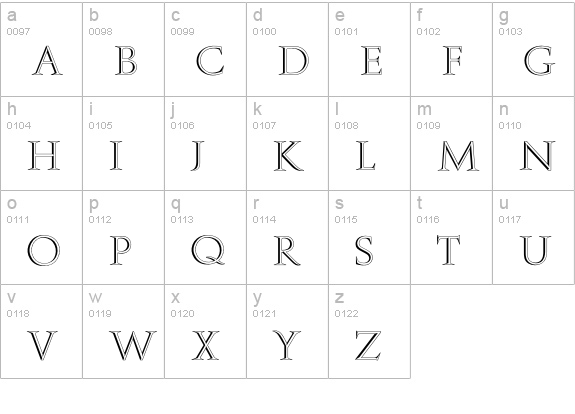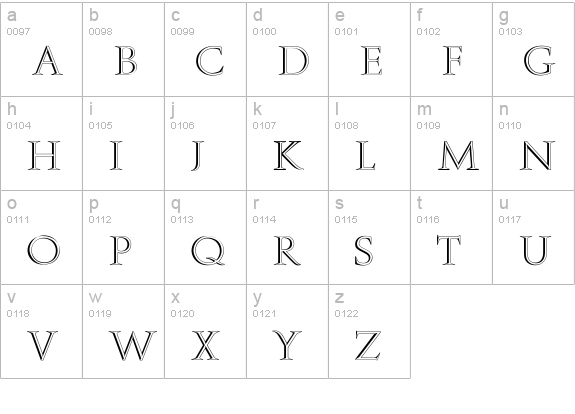
RamonaInline Font Details
RamonaInline is a stunning font that is sure to captivate anyone who lays eyes on it. With its sleek and elegant design, this font is perfect for adding a touch of sophistication to any project. Whether you're creating a logo, designing a website, or crafting eye-catching advertisements, RamonaInline will elevate your work to new heights. What sets RamonaInline apart is its versatility. This font can seamlessly adapt to various styles and themes, making it a go-to choice for designers of all kinds. Its clean lines and balanced proportions make it easy to read, ensuring that your message is conveyed with clarity and impact. But perhaps the best part about RamonaInline is that it is free. That's right, this exceptional font is freely available to download at FontsMarket.com. This means that you can enhance your projects without having to spend a dime. Whether you're a professional or a hobbyist, this font is a valuable addition to your toolkit. So why wait? Don't miss out on the opportunity to elevate your designs with RamonaInline. Download it for free today at FontsMarket.com and let your creativity soar.